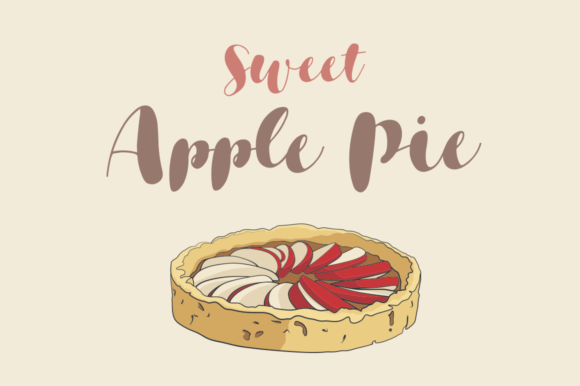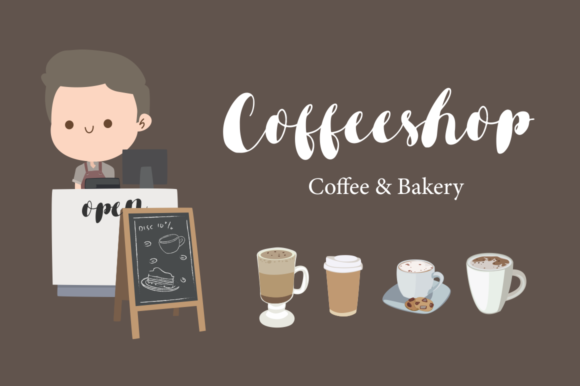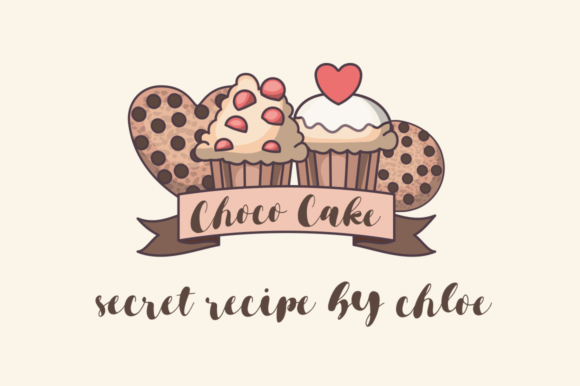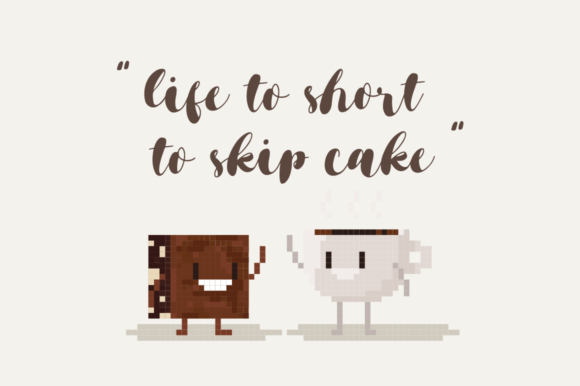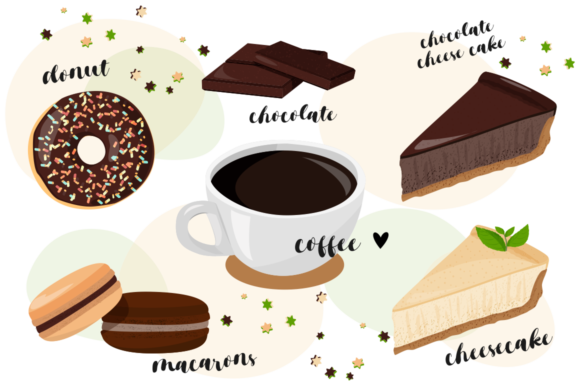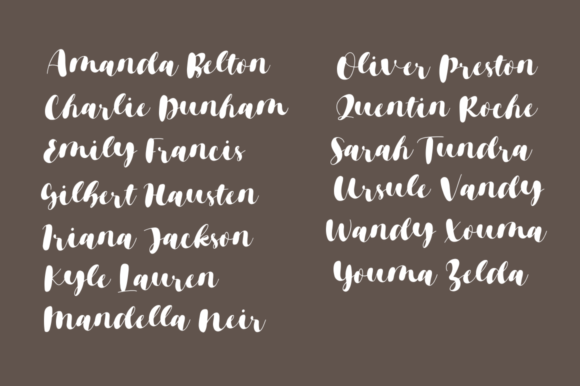
Discover the Sweet Charm of Brownies Sugar Font
There’s something magical about creating something beautiful from scratch. Maybe it’s the feel of a pen gliding across a sheet of paper, or the excitement of seeing a design come to life. For many designers, it’s that moment of inspiration that sets their creative wheels in motion. And for those who crave a touch of elegance in their designs, the Brownies Sugar Font is the perfect companion.
This delightful handwritten font simplifies the art of elegance, making it easy to add a personal touch to any project. Whether you’re crafting wedding invitations, designing beautiful stationery, or creating eye-catching social media posts, Brownies Sugar Font is the perfect tool to bring your vision to life. As a designer, you’ll appreciate its versatility and the endless possibilities it offers to elevate your work.
Brownies Sugar Font Key Features
- Font Family: Brownies Sugar Font is a unique, modern script font designed to add a touch of elegance and sophistication to any design.
- Unique Characteristics: The font features a unique blend of swashes, ligatures, and flourishes, making it perfect for creating custom, handwritten-style typography.
Brownies Sugar Font Review
First off, I want to say that I was excited to dive into the Brownies Sugar Font, and for the most part, it delivers. ✨ The font’s playful, handwritten feel is perfect for creating a whimsical atmosphere in your designs. The Sugar Font’s varied line widths and subtle imperfections make it a great choice for adding a touch of personality to your projects.
One of the things that really stands out about the Brownies Sugar Font is its versatility. ✨ It’s suitable for a wide range of applications, from children’s books and party invitations to social media graphics and advertisements. The font also comes in a range of styles, from casual and relaxed to more formal and elegant.
While the Brownies Sugar Font is a solid choice, there are a few limitations to be aware of. ⚠️ For one, the font can be a bit tricky to read at smaller sizes, so be sure to test it out at different scales before using it in your designs. Additionally, the font’s playful feel may not be suitable for all types of projects, such as corporate or professional designs.
In conclusion, the Brownies Sugar Font is a great addition to any designer’s toolkit. ✨ While it may have some limitations, its versatility and unique feel make it a great choice for a wide range of applications. If you’re looking for a font that can add some personality to your designs, the Brownies Sugar Font is definitely worth checking out.
- Playful, handwritten feel
- Varied line widths and subtle imperfections
- Suitable for a wide range of applications
- Comes in a range of styles
- May be tricky to read at smaller sizes
- Not suitable for all types of projects
Tips for Getting the Most Out of Brownies Sugar Font
For the best results, use Brownies Sugar Font in bold or italic to add emphasis to your text.
Experiment with different font sizes and colors to create visually appealing combinations.
Brownies Sugar Font is ideal for:
Cake and baking-related designs, such as bakery logos or dessert menus.
Food and beverage branding, including coffee shops or restaurants.
Wedding or event invitations featuring a sweet or whimsical theme.
Alternatives to Brownies Sugar Font for Designers
Great Vibes is a modern, elegant script font suitable for creating a whimsical and romantic atmosphere. It’s ideal for branding, packaging, and advertising materials where a touch of sophistication is required. Great Vibes is more refined and polished than Brownies Sugar Font, making it a better choice for high-end designs.